21 Best Retrowave Fonts
Love retrowave fonts? Check out this list! It's packed full of 1980s font flair. Whether you prefer an 80s chrome font or a neon look, there's tons of inspiration to see. Find your next favorite retrowave font today on Envato.
If you love a neon 1980s font look, then you're going to love this eye-catching display font. It's got a memorable aesthetic that works really well for retrowave-themed projects, and it's particularly good for points of emphasis.
Retrowave styles often draw influence from vintage tech themes. That makes a pixel-themed font like this a fun choice for the aesthetic. This font also scales nicely. Try it large or small, as its legibility is solid.
This 1980s font has jagged edges and a sharp look. It makes for a memorable design choice, especially if you try overlaying this font with a chrome or gradient effect. Saturated colors are also a strong choice for this aesthetic.
If you love the chrome look that we often see in a 1980s aesthetic, then you're going to love this retrowave font. It just oozes retro tech energy. Or you could try this font out in a high-contrast color to take it in another direction.
This font has some interesting contrasting strokes. Notice the balance between curves and straight lines. You could push the retrowave font look further by layering this font or maybe adding a stroke.
Again, signature fonts like this one can be an excellent choice for a 1980s font look. This one has some added texture, which gives it a grittier vibe. Try pairing this with another 1980s font and keeping the colors saturated.
Prefer a bold retrowave font? Then a font style like this one could be a perfect choice. Push the chrome look if you fancy the style presented in this example. Or try using a highly saturated gradient overlay.
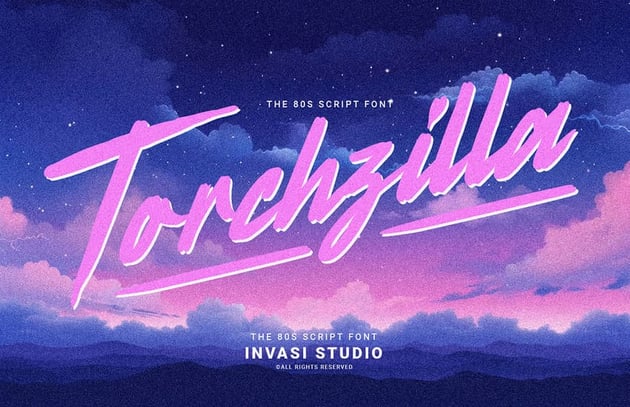
Signature fonts come in a wide variety of styles, and this energetic font has so much 1980s energy. Notice how that background stroke helps push it towards something perfect for a retrowave project.
Here's a more unusual 1980s font. That older technology vibe is often perfect for a retrowave look, and this font really captures that style very well. Notice how well it pairs with retro tech. Try it with saturated colors too.
This font is straight out of the 1980s, right? Everything from the shape of the letterforms to how well they layer just perfectly keys into the look and feel of the era. If you prefer something less colorful, try this in a hot neon on black.
This font features a host of really interesting line work. It plays into that neon look without necessarily directly looking like a neon sign. Try layering this or using it with a stylish signature font to capture that 80s vibe.
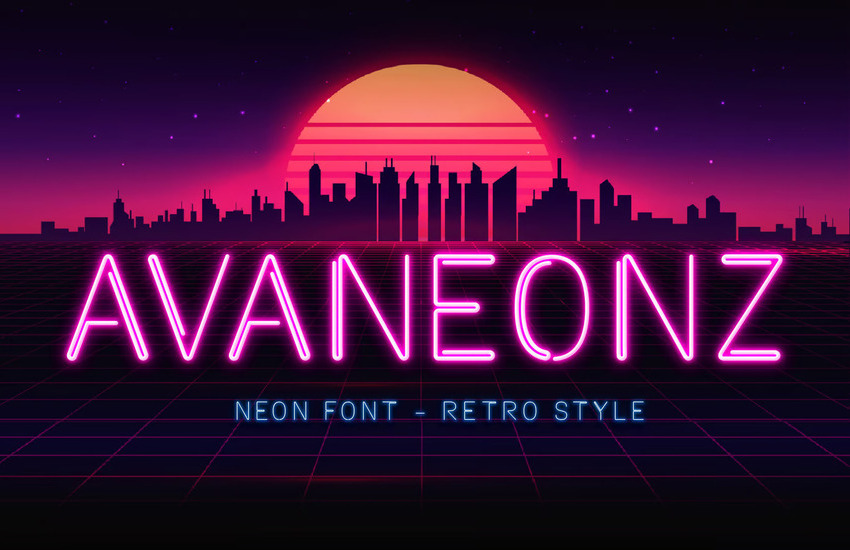
If you prefer a friendlier-looking signature font, why not try this one? This is a great font download because you can key into that retrowave font vibe, but you can dress this up in different ways for other aesthetics too.
Font duos are such a great way to easily capture a look and feel in one convenient download. This retrowave font duo is a great choice for a 1980s themed project. Note how well the neon lights pair with this signature font.
How about a curlier signature font? Notice how easy it is to take a wide variety of signature fonts and make them work for a 1980s look. It's very much about those colors, and the glow can help push the look even further.
Which Retrowave Fonts Are Your Favorites?
If you're looking for 1980s font inspiration, there are so many directions you can try. Go for a retro tech vibe or try out an 80s chrome font. Signature fonts in saturated colors can be an awesome choice too.